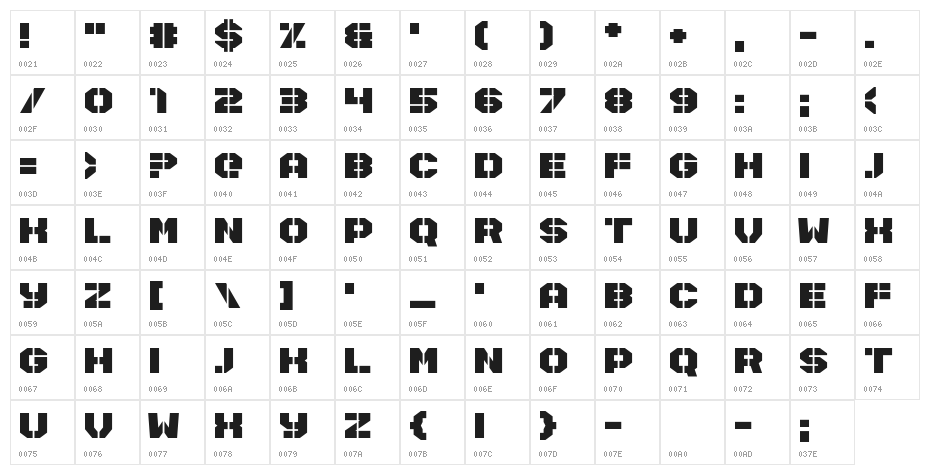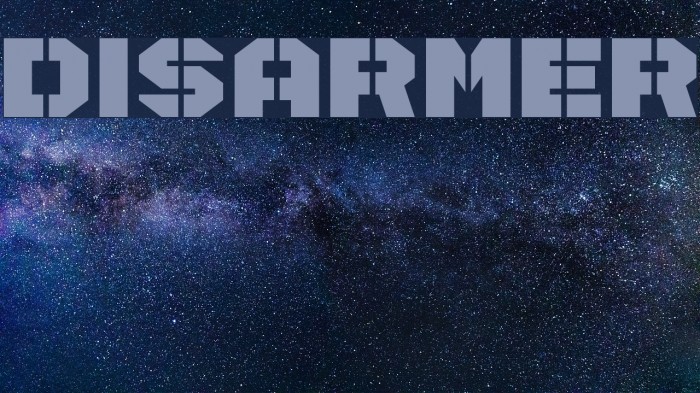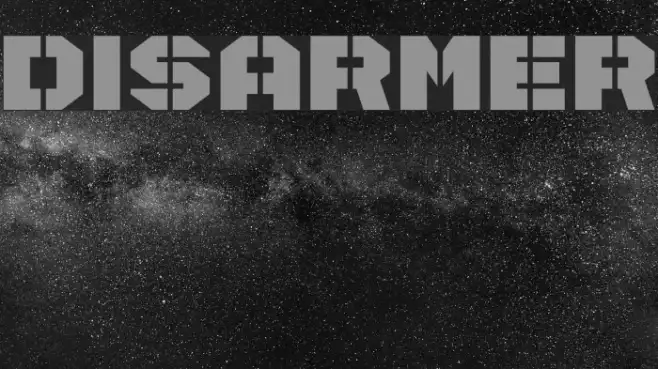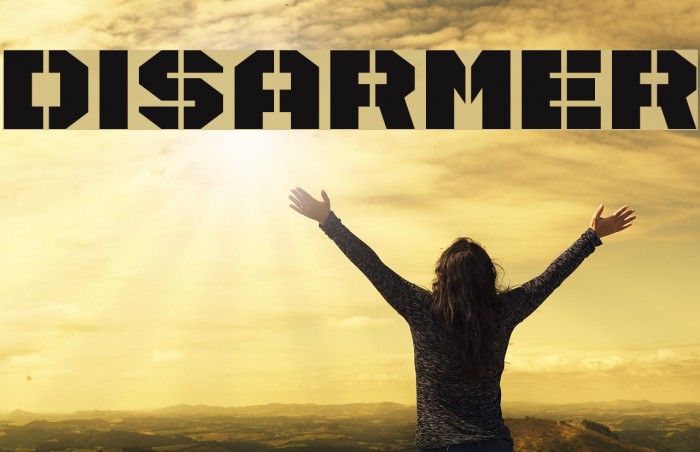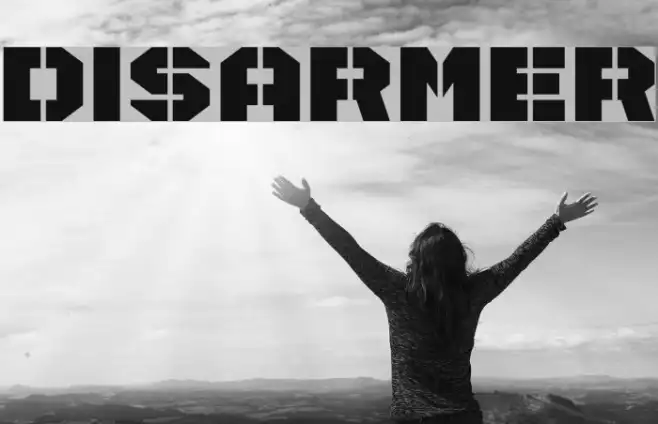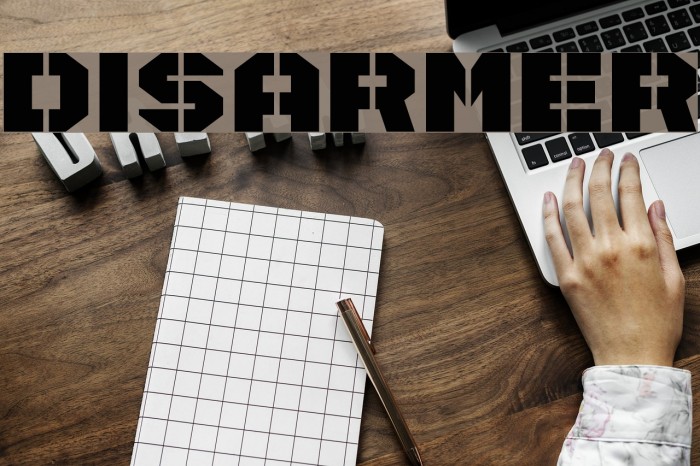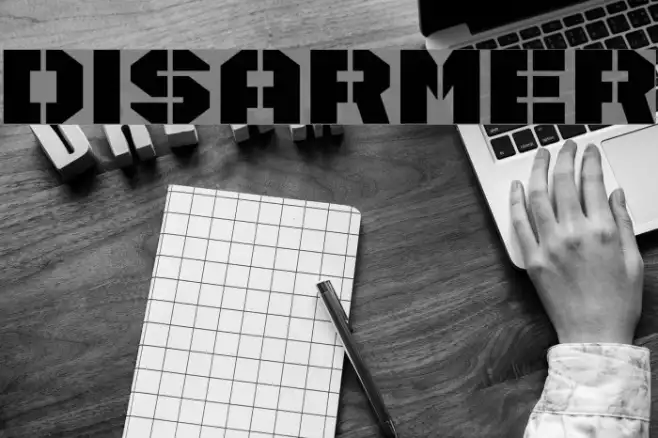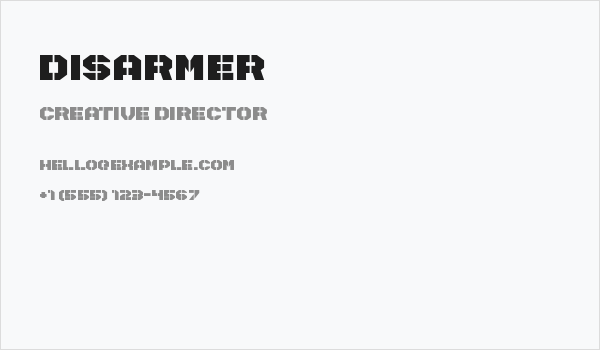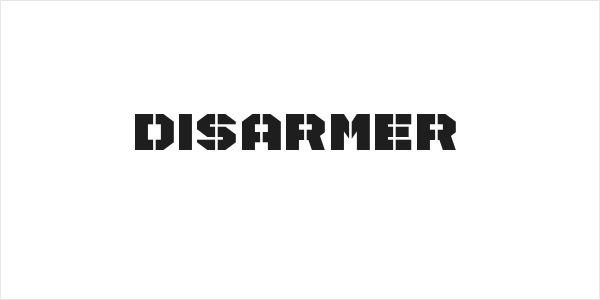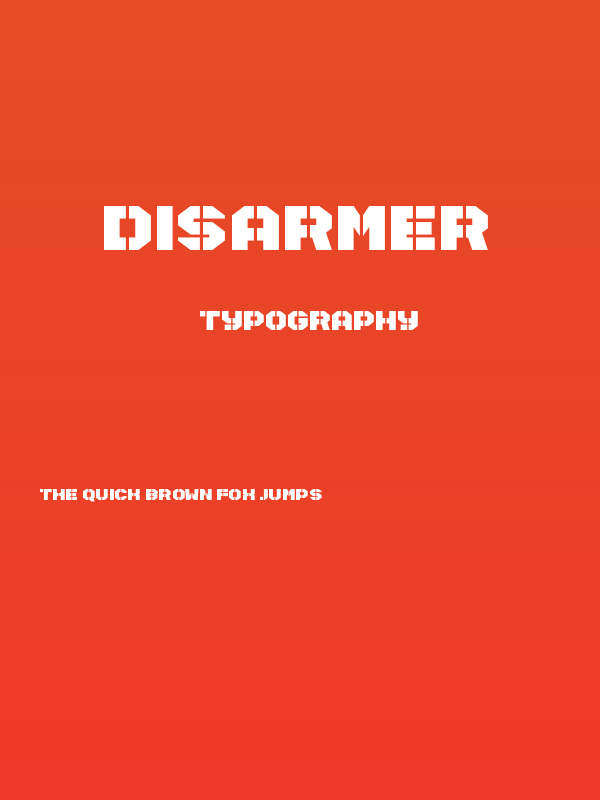
Disarmer Font
Disarmer Description
This font features a bold, geometric design with a distinctly modern and industrial feel. The characters are constructed with sharp angles and straight lines, creating a sense of strength and stability. Each letter is composed of solid blocks, giving it a heavy and impactful presence. The font maintains a consistent weight throughout, emphasizing its boldness. The spacing between characters is tight, which enhances the compact and cohesive appearance. This style is particularly suitable for projects that require a strong visual impact, such as branding, posters, and headlines. The font's unique structure makes it stand out, making it ideal for attention-grabbing designs.
| Proposed Projects | Ideal for branding, posters, headlines, and any design requiring a strong visual impact. |